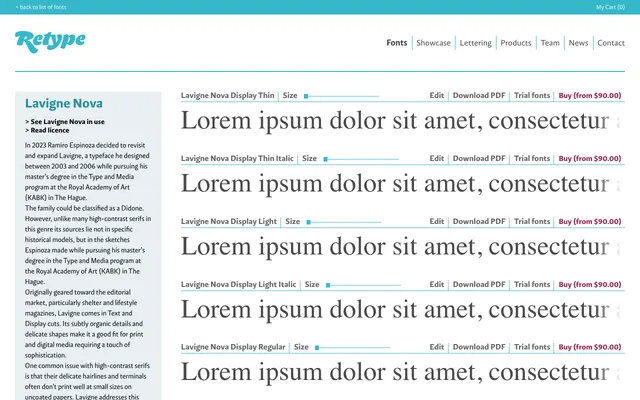
Lavigne Nova
A serif family split across Display and Text optical sizes, spanning nine weights with matching italics for editorial and long-form use.
Lavigne Nova offers two purpose-built optical variants: a Display cut optimised for headlines and large settings, and a Text cut tuned for smaller sizes and body copy. The Display subfamily runs from Thin to Black with italics throughout, while the Text subfamily covers Book to Bold. The result is a coordinated system suited to publication design where both headline and body work need to cohere.
The Display and Text optical size split, paired with a range of weights from Thin to Black, is characteristic of a refined transitional or contemporary serif designed for both editorial display and running text use.